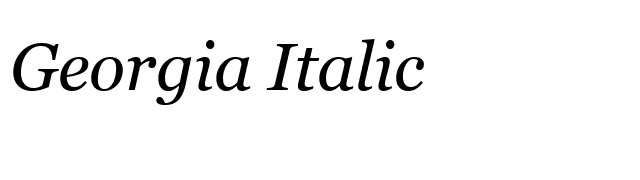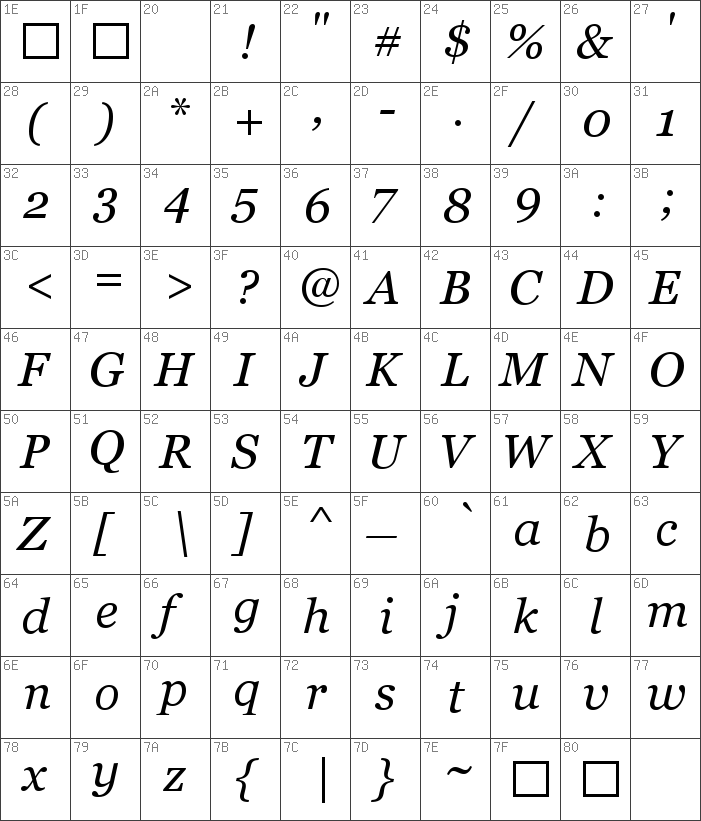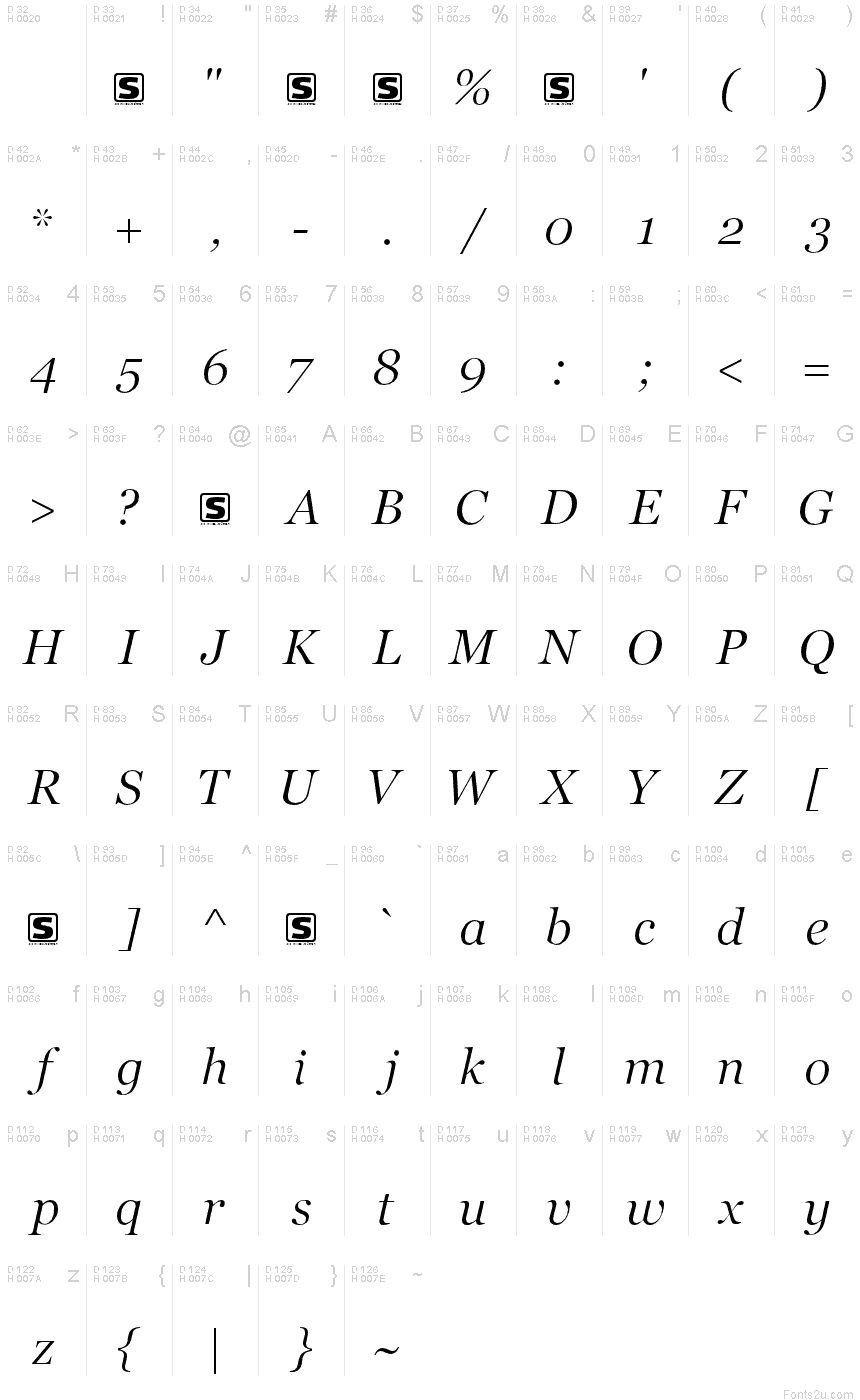
Georgia Font Italic
Georgia font italic. This typeface was designed as a serif companion to the verdana font family with a goal to appear elegant but legible on low resolution screens as well as when printed at small sizes. Download georgia italic font free in ttf format for windows and mac. See all 21 photos of georgia font.
Moreover you can embed it to your website with atfont face support. Georgias accompanying italic is a graceful flowing font the design of which entirely masks the difficulty of creating an italic for the screen. Georgia bold italic fontttf.
Georgia is a serif typeface designed by matthew carter for microsoft corporation in the mid 1990s. Available in 3 sizes sold separately upper case. Download georgia italic font family georgia by with italic weight and style download file name is georgia corsivottf.